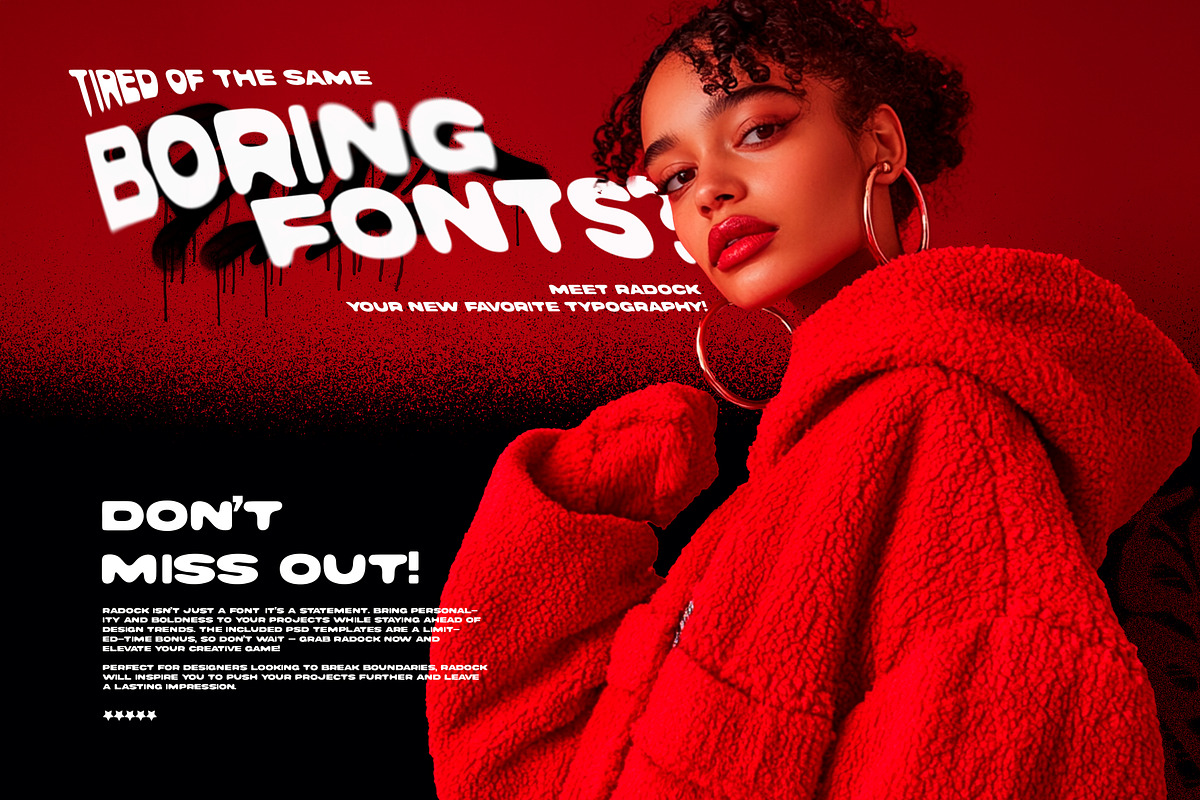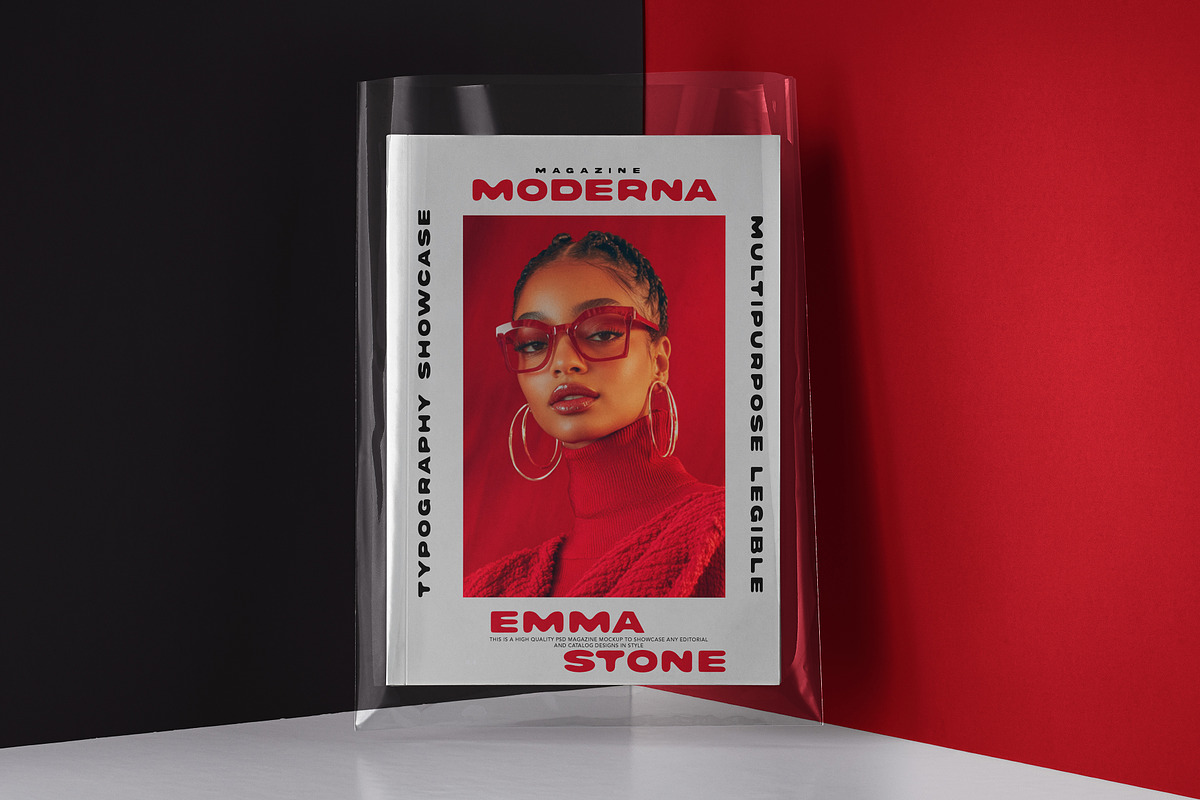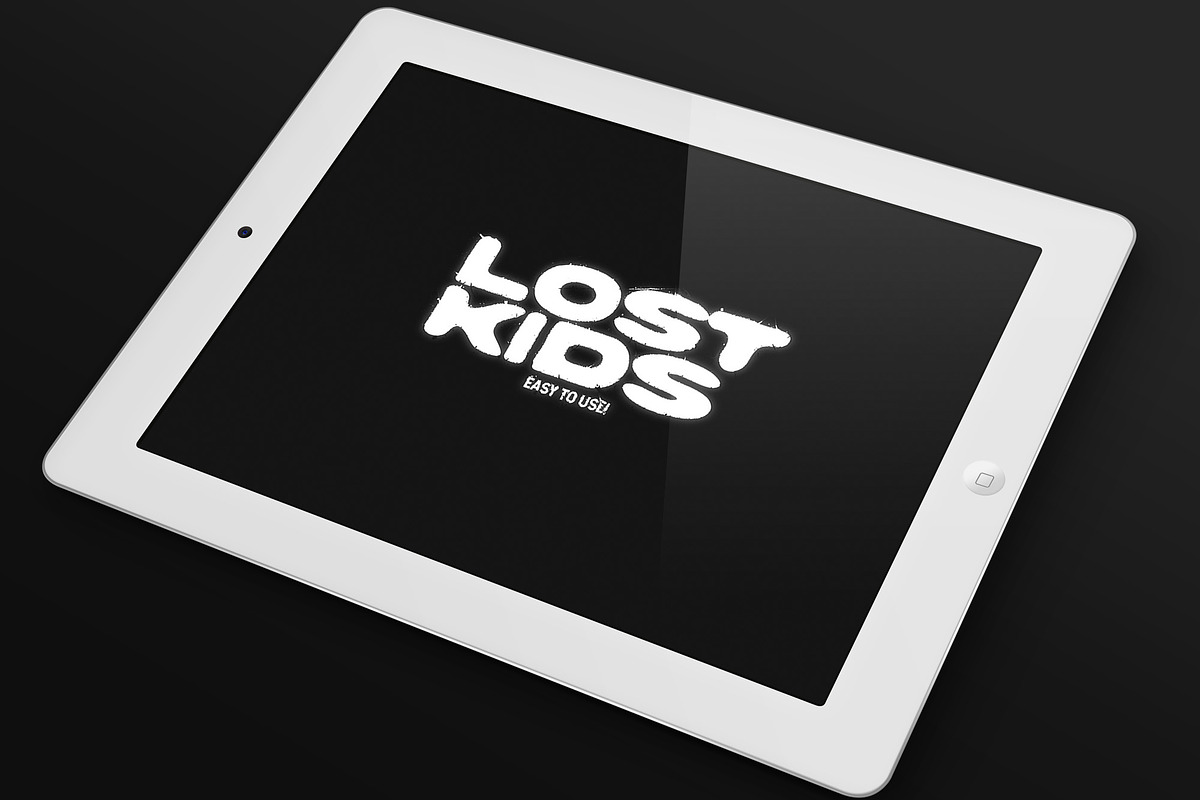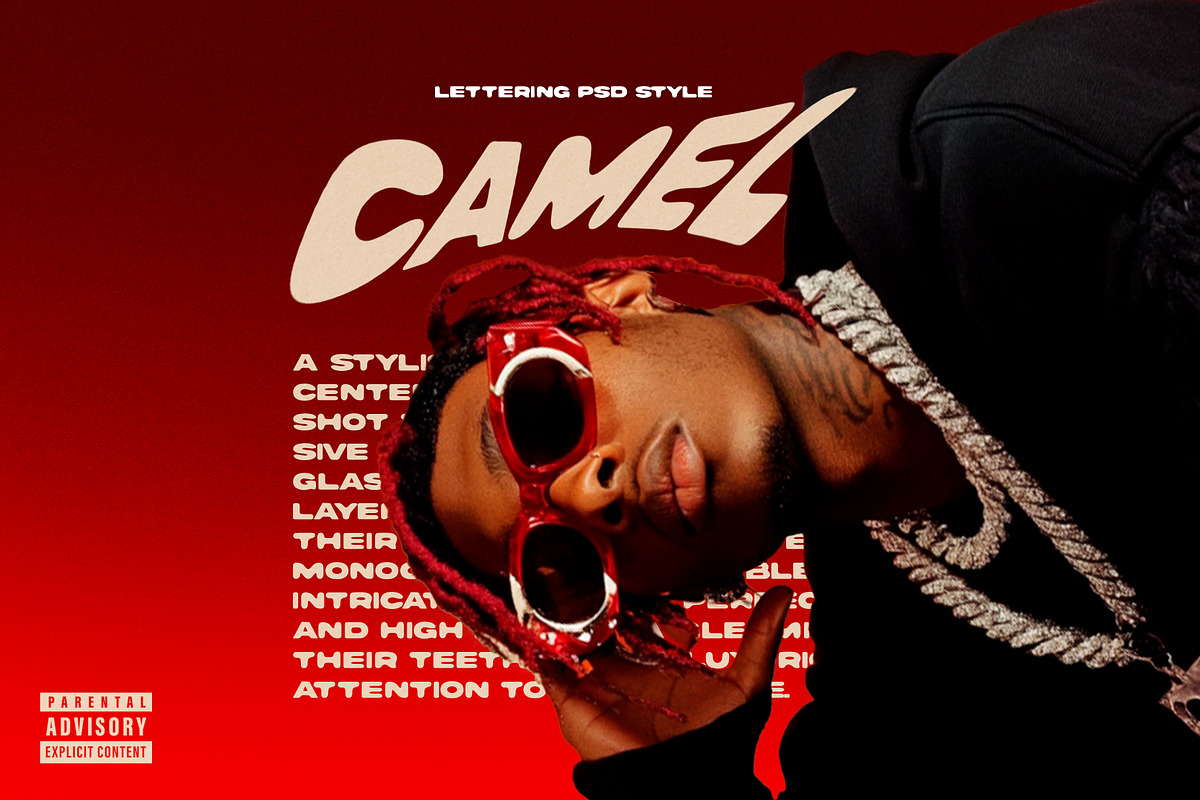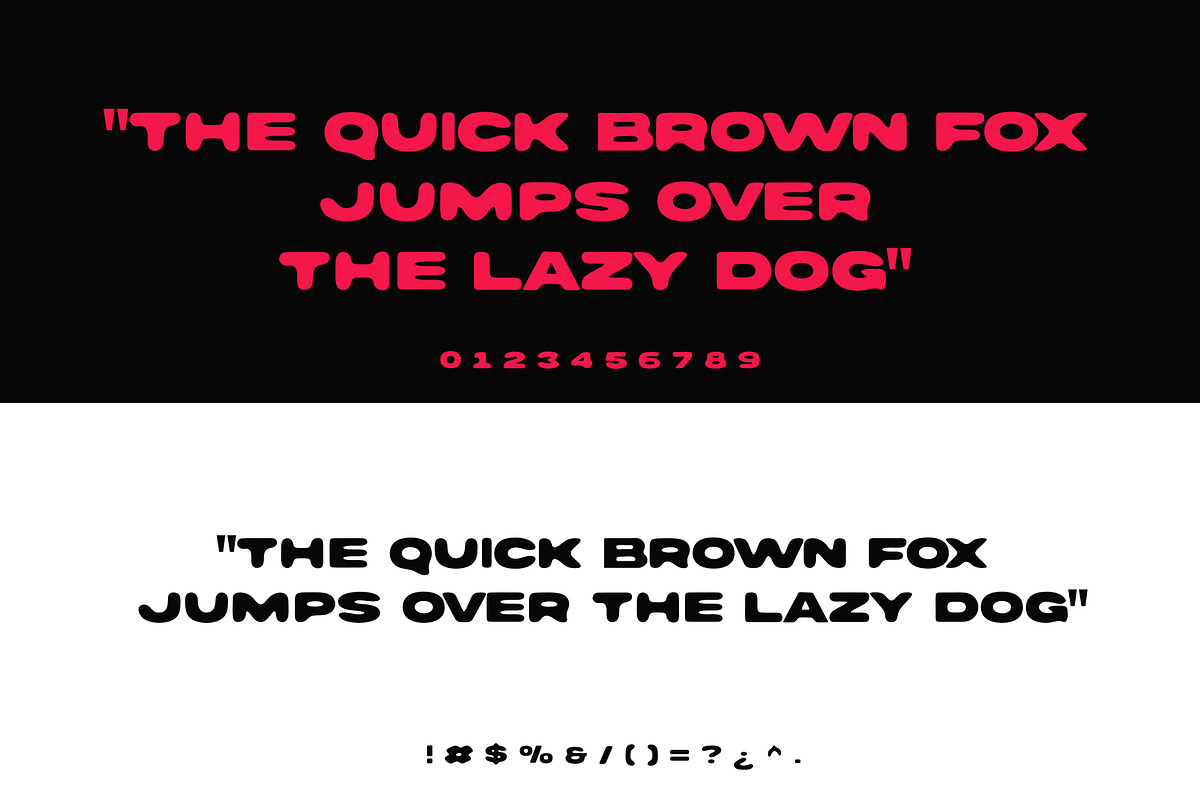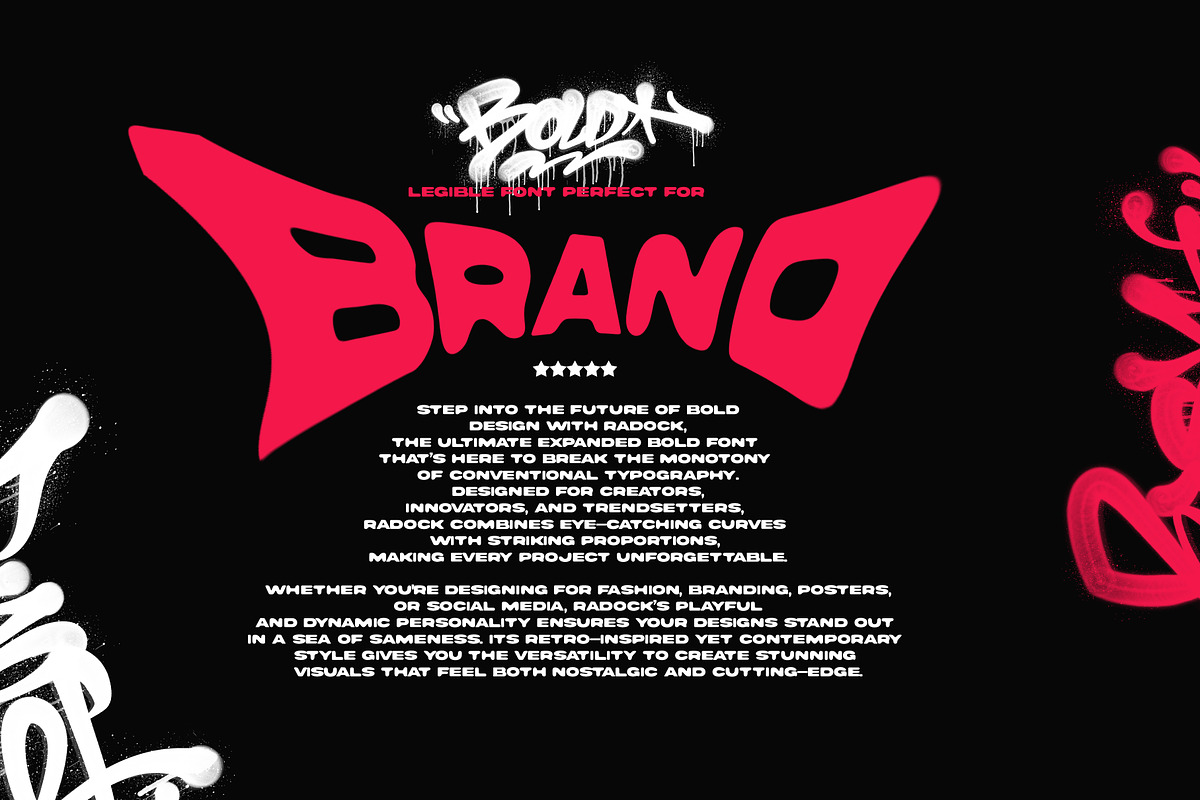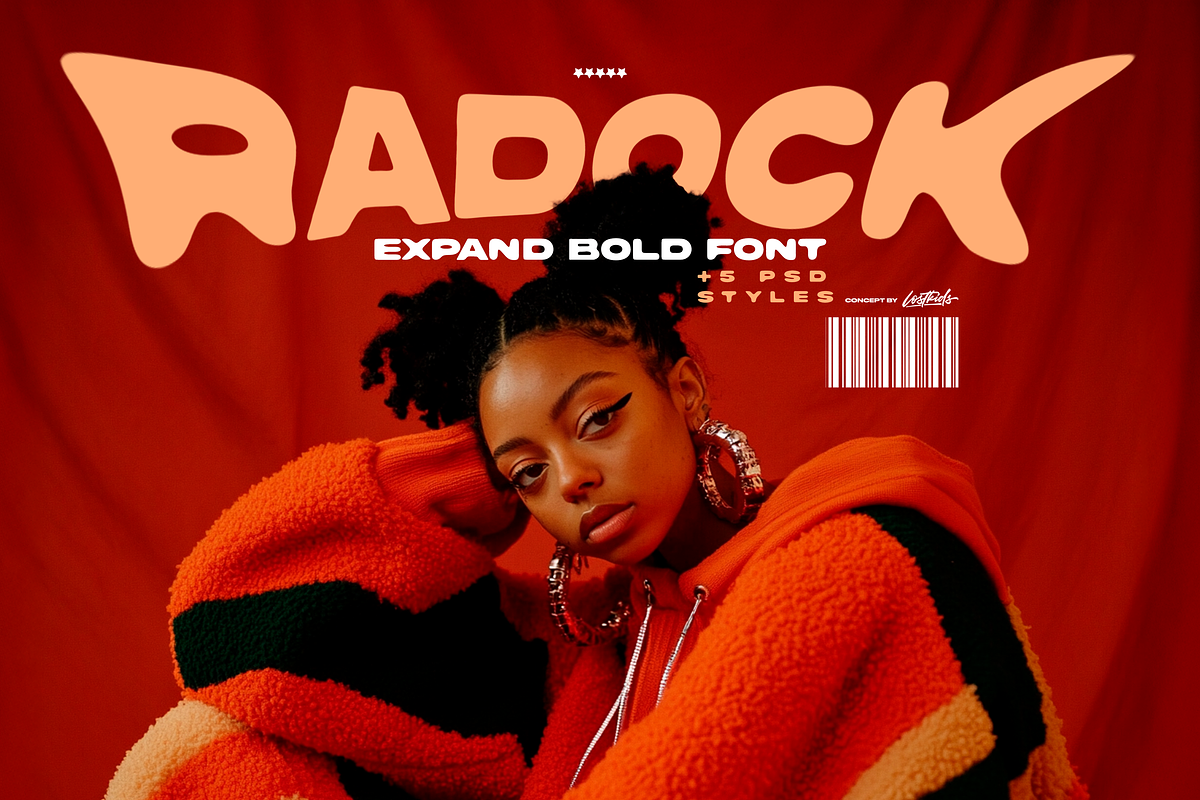
Radock - Bold Font + 5 PSD Styles
Radock - The Ultimate Bold Display Font with Exclusive Styles Tired of the same boring fonts cluttering your projects? Say hello to Radock – the bold, vibrant, and head-turning typeface you’ve been waiting for. Designed for designers, creators, and trendsetters, Radock is your go-to font for making a statement. Whether you’re creating eye-catching headlines, branding a new product, or crafting stunning social media posts, Radock delivers the perfect mix of retro charm and modern edge.
Why Choose Radock? Bold and Chunky Display Typeface: Radock's oversized, expanded characters ensure your text grabs attention. Retro Meets Modern: A perfect fusion of vintage-inspired design and contemporary trends, ideal for posters, logos, and packaging. Versatility at Its Best: Use it for everything from branding projects and social media campaigns to website headers and editorial designs. PSD Styles Included: Instantly apply unique lettering effects to your text with 5 customizable PSD files – an exclusive bonus to boost your creativity. Key Features: Bold Sans Serif Font: Clean, crisp, and designed to pop. Expanded Letterforms: Adds a playful yet professional vibe to any project. High-Impact Design: Perfect for branding, advertising, packaging, and headlines. Fully Optimized for Designers: Compatible with Adobe Photoshop, Illustrator, Canva, and more. Editable PSD Styles: Add depth and flair to your typography with just a few clicks. Who is Radock for? Graphic designers, brand strategists, and content creators looking for a typeface that screams bold, creative, and unique. Radock is ideal for anyone wanting to stay ahead of design trends and add a professional yet playful touch to their projects.
What Makes Radock Unique? This isn’t just another font. Radock is a tool for standing out in a crowded design landscape. Its retro-inspired curves, bold personality, and versatile features make it an essential addition to your design toolkit. Plus, the included PSD styles mean you’re not just buying a font – you’re investing in a creative experience that saves you time and boosts your output.
Use Cases: Branding: Add character to logos, packaging, and brand collateral. Social Media: Perfect for bold Instagram posts, Pinterest graphics, and Facebook ads. Posters & Flyers: Make headlines that stop people in their tracks. Merchandise: Ideal for t-shirt designs, stickers, and more. Don’t Wait – Get Radock Today! Fonts like Radock don’t come around every day. With its exclusive PSD styles and unmatched versatility, this is more than a font – it’s your new design secret weapon. Don’t miss out – add Radock to your collection now and take your creativity to bold new heights.